Top 10 Best-Selling Dingbat & Decorative Fonts on GraphicRiver for 2025
Krakoan PSK regular
Krakoan PSK regular is a unique dingbat font inspired by comic book language with a modern aesthetic, ideal for fan projects, creative poster designs, and social branding needing a punch of distinct style.
Who it's suitable forComic creators, music event organizers, pop culture designers
Check the best price hereHand Drawn Arrows Font
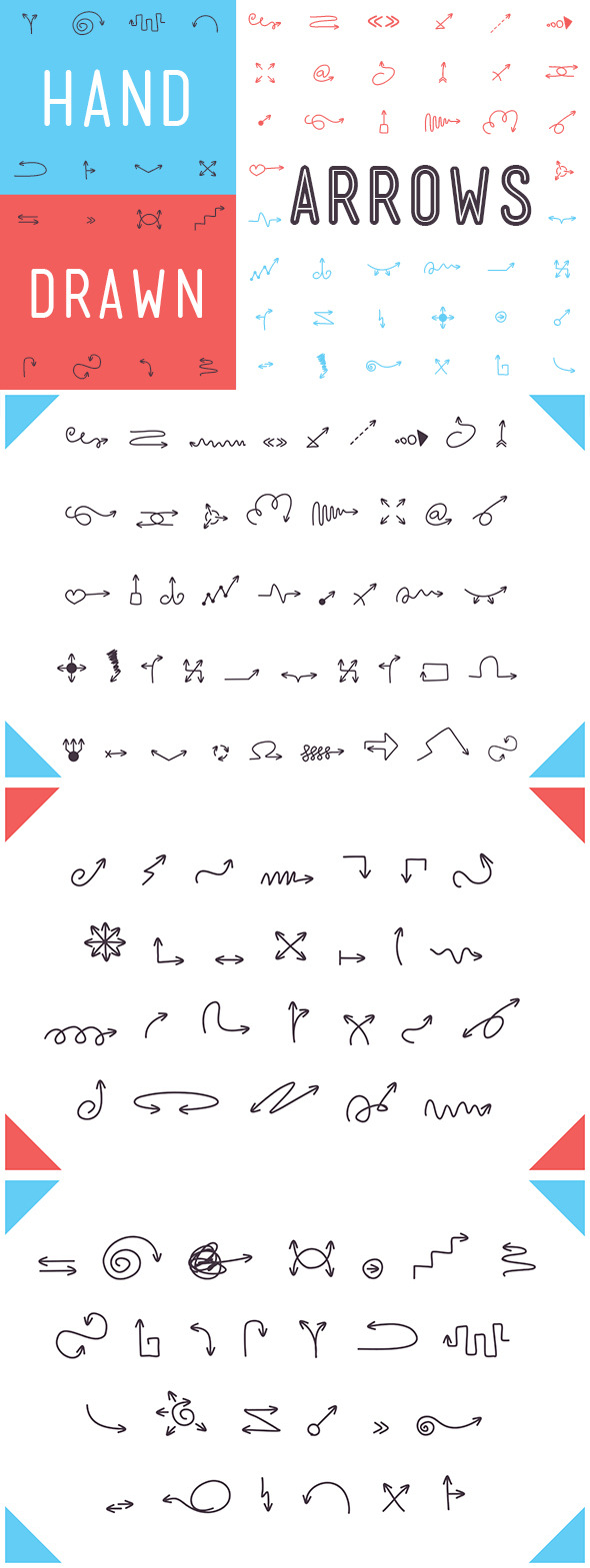
Perfect for presentations, infographics, and social posts, this font provides a playful collection of hand-drawn arrows to guide your viewer’s eye stylishly without needing custom sketches every time.
Who it's suitable forSocial media managers, educators, marketers
Check the best price herePixel Patterns
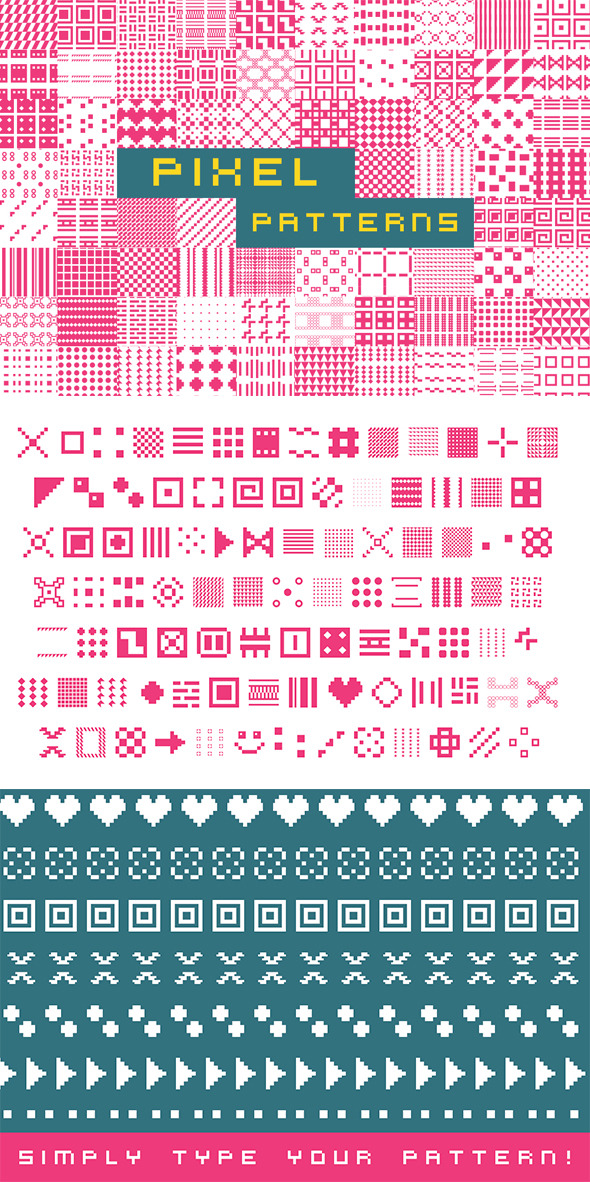
Add retro gaming vibes and digital texture with this pixel pattern font pack, ideal for backgrounds, social posts, or retro-themed branding, delivering sharp style without manual pixel art creation.
Who it's suitable forGame designers, nostalgic brand creators, digital artists
Check the best price hereRoad Sign Vol. I Font Pack
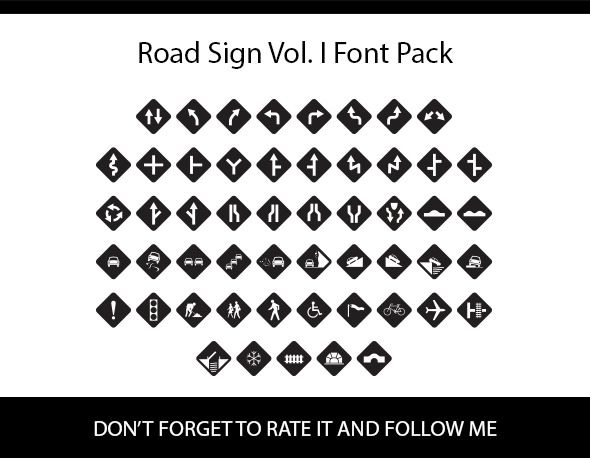
This pack brings a library of vector-based road sign symbols, perfect for navigation apps, travel blog graphics, or marketing visuals requiring universally recognizable icons without licensing hassle.
Who it's suitable forTravel bloggers, app designers, signage creators
Check the best price hereLovingly Symbol Flourish Hearts Font
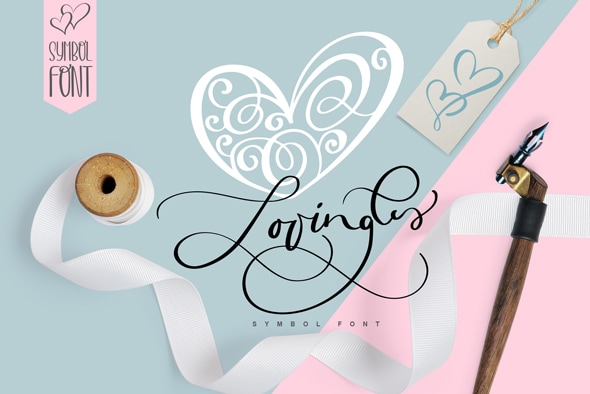
Add elegant romance to your designs with this flourish heart symbol font, ideal for wedding invitations, Valentine’s promotions, or any project needing graceful decorative elements instantly.
Who it's suitable forWedding planners, greeting card designers, boutique brands
Check the best price hereAdvertis Ornament Flourish Font
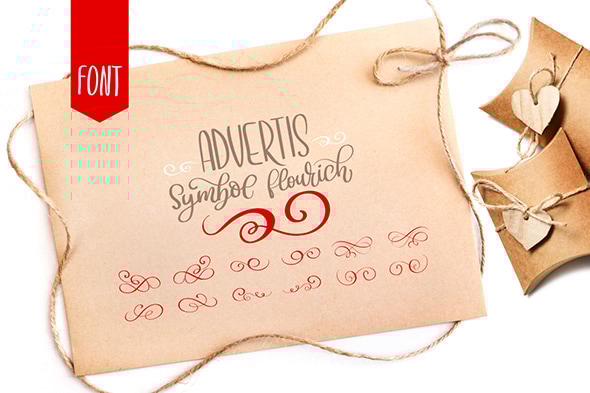
This classic ornament flourish font adds luxury and sophistication to your branding or event designs, providing scalable vector elements to elevate packaging, social banners, and print assets instantly.
Who it's suitable forLuxury brands, event organizers, packaging designers
Check the best price hereWach op-art - Dingbat & Vectors
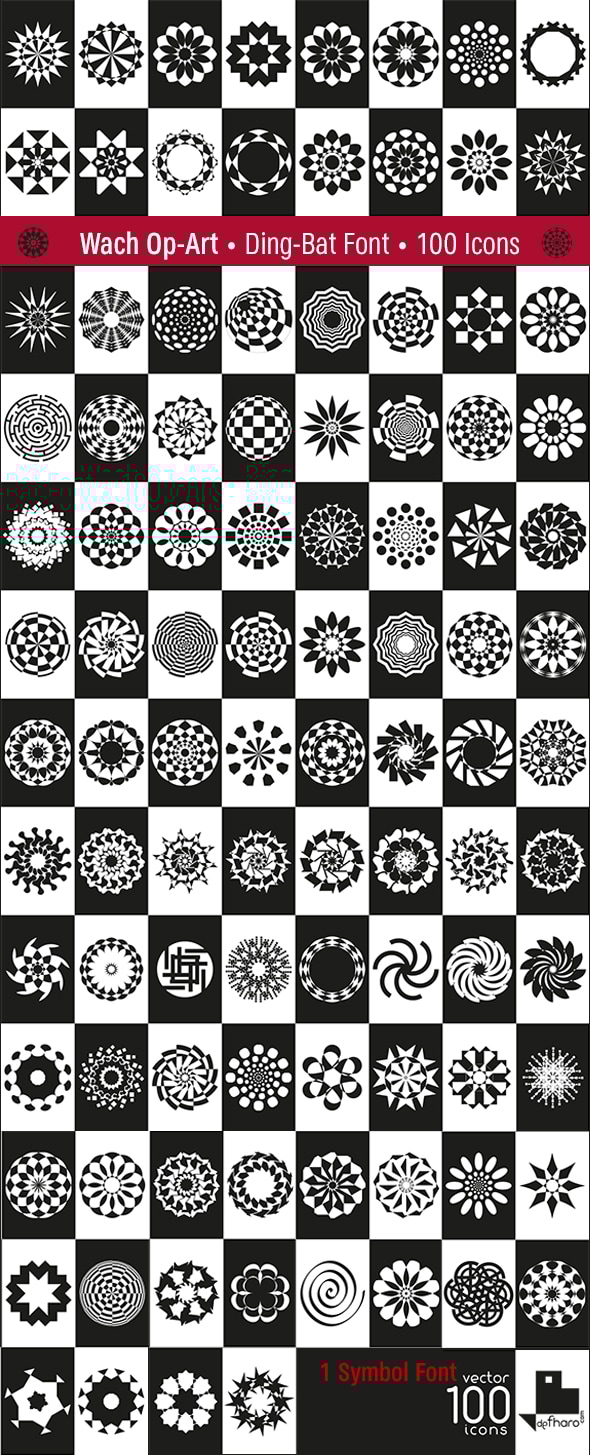
This collection offers hypnotic op-art vector shapes and dingbats to add dynamic visuals to posters, album art, and social media campaigns without heavy manual vector work.
Who it's suitable forMusic event organizers, poster designers, artists
Check the best price hereGood boy
This playful, child-friendly dingbat font adds charm to children’s books, toy packaging, or family event designs, offering whimsical shapes that bring smiles to any layout instantly.
Who it's suitable forChildren’s book authors, toy brands, family event planners
Check the best price hereCnossus Powerful Bold Fun
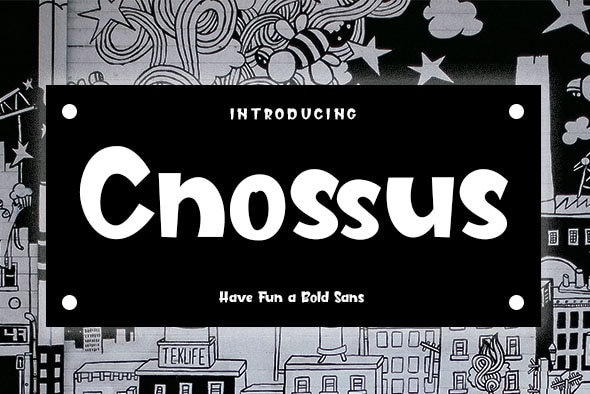
Cnossus delivers a bold, fun vibe with a chunky design perfect for eye-catching titles, social ads, and branding that requires maximum impact with minimal fuss.
Who it's suitable forMarketers, poster designers, event organizers
Check the best price hereHelloweb
Helloweb is a modern decorative font crafted for tech startups and digital agencies looking to add a friendly, innovative look to social content, hero banners, and digital product designs.
Who it's suitable forTech startups, digital agencies, app marketers